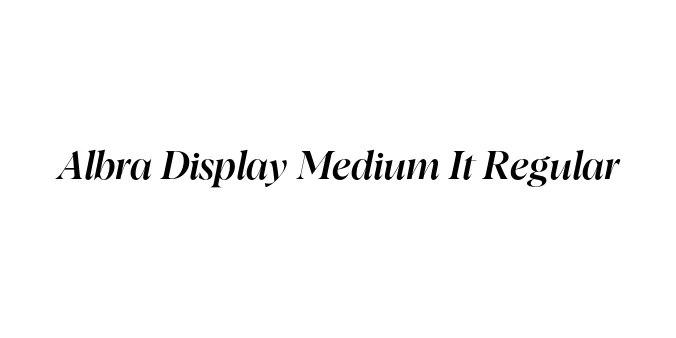
Albra Display Medium It Regular
Designed by BumbumType
| Category | Display Serif |
| Designer | BumbumType |
Albra Display Medium Italic is a sophisticated high-contrast serif typeface that belongs to the expansive Albra collection. Designed to offer a bridge between classical elegance and contemporary flair, this weight features sharp serifs and refined proportions that demand attention. It was crafted specifically for large-scale applications where the interplay of thick and thin strokes can be fully appreciated.
The Medium Italic variant brings an expressive and fluid motion to the family, making it an excellent choice for editorial design and high-end luxury branding. Its unique architecture draws inspiration from mid-century display faces while maintaining a clean, modern aesthetic that performs exceptionally well in both print and digital high-resolution environments.
Albra Display Medium It Regular Best Uses
Perfect for sophisticated magazine headlines and feature articles.
Ideal for luxury fashion labels, jewelry brands, and high-end identity systems.
Excellent for eye-catching promotional banners and print advertisements.
Adds a touch of class to hero sections and prominent web headers.